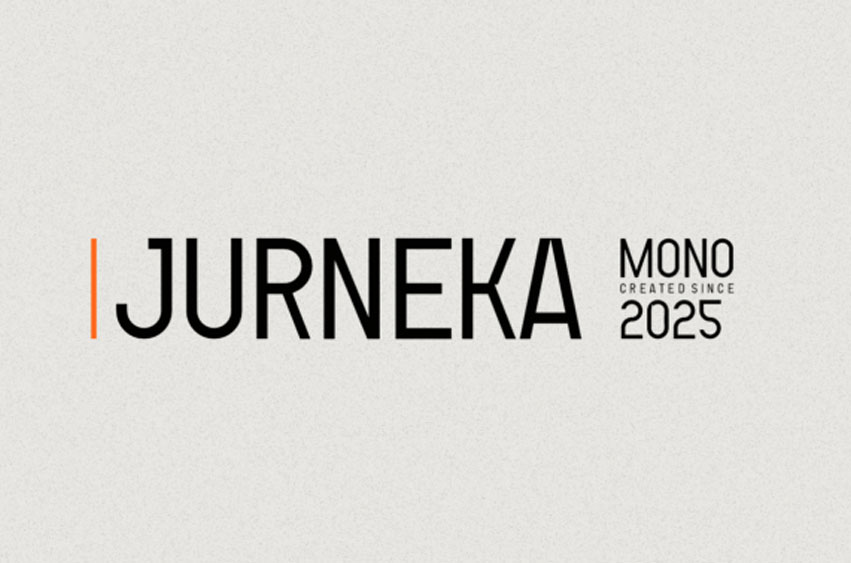
Jurneka Mono Font
Jurneka Mono Font is a lovely and timeless sans serif font. It is the best choice for creating eye-catching logos, branding, and quotes.
Every letter has a unique and beautiful touch, which will make your design come alive!